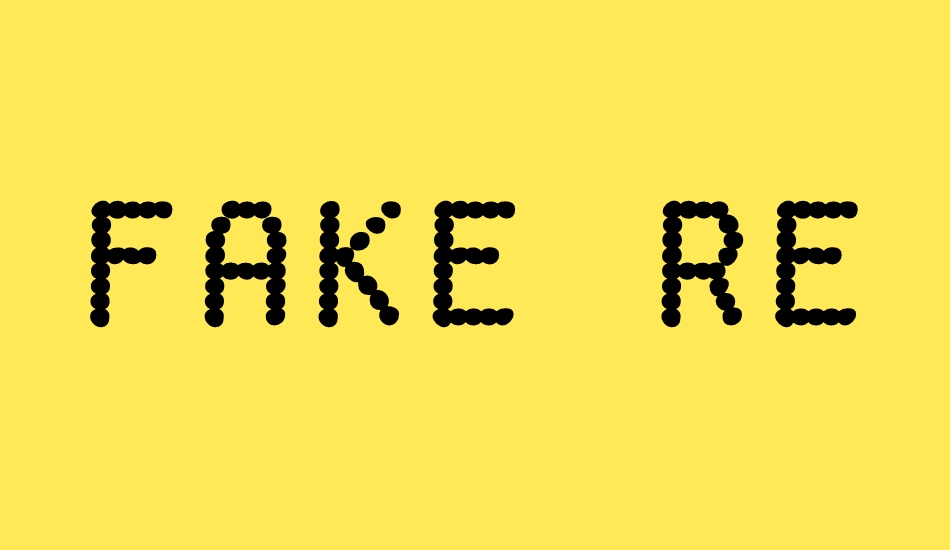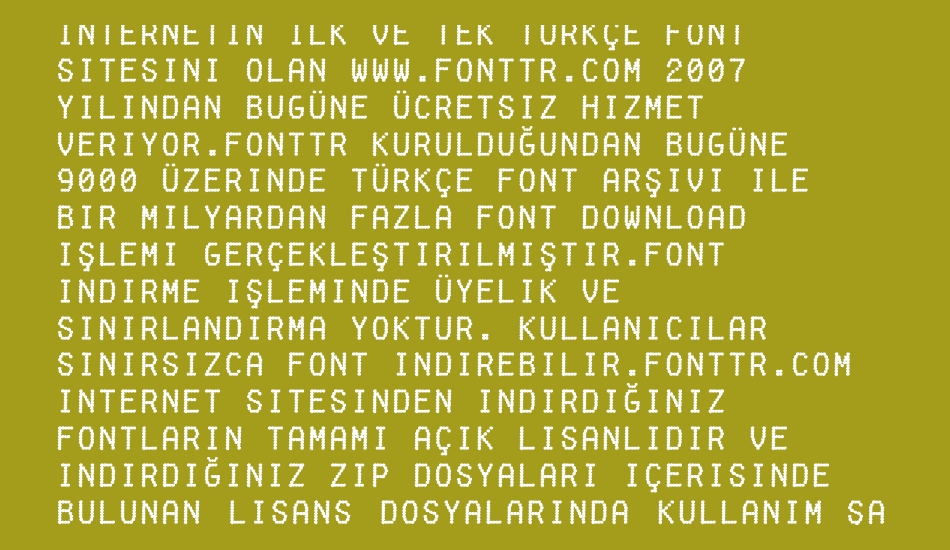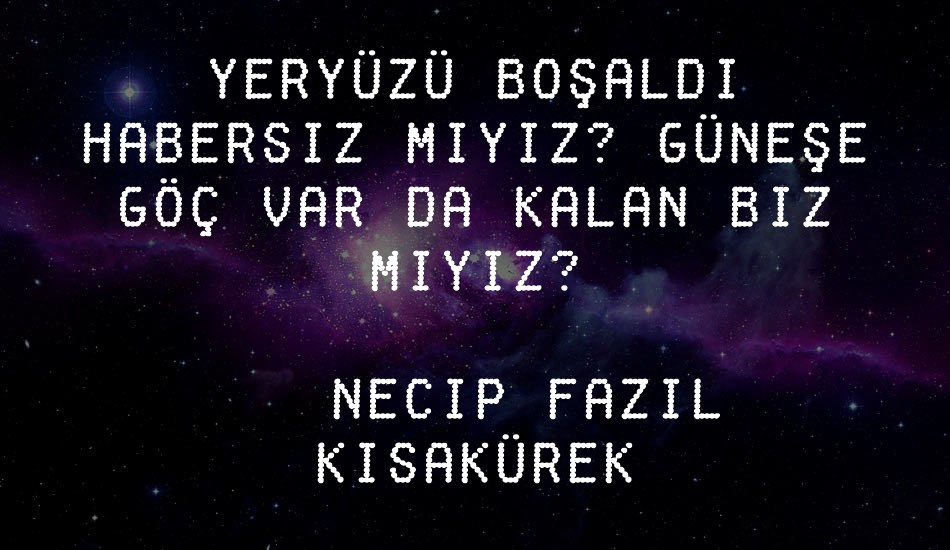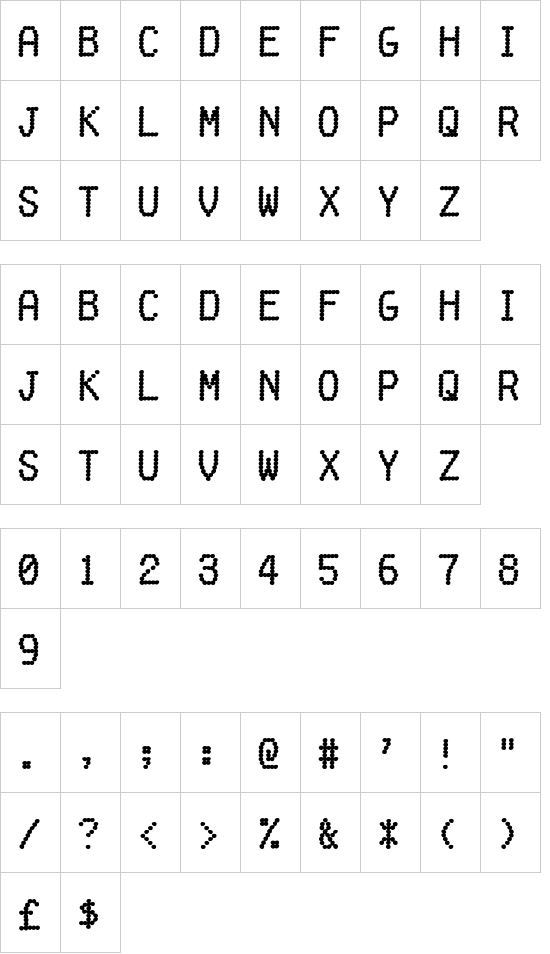
Fake Receipt Font - Fake receipt is a decorative font that resembles print from a cash register. It supports more languages, fractions and numeric ordinals. Fake receipt is a font that mimics the style of old cash register receipts.
Fake receipt is a decorative font that resembles print from a cash register. Fake receipt is a font that mimics the style of old cash register receipts. It supports more languages, fractions and numeric ordinals.
It supports more languages, fractions and numeric ordinals. Fake receipt is a font that mimics the style of old cash register receipts. Fake receipt is a decorative font that resembles print from a cash register.
Fake receipt is a font that mimics the style of old cash register receipts. Fake receipt is a decorative font that resembles print from a cash register. It supports more languages, fractions and numeric ordinals.
Fake receipt is a decorative font that resembles print from a cash register. It supports more languages, fractions and numeric ordinals. Fake receipt is a font that mimics the style of old cash register receipts.
Fake receipt is a font that mimics the style of old cash register receipts. It supports more languages, fractions and numeric ordinals. Fake receipt is a decorative font that resembles print from a cash register.
It supports more languages, fractions and numeric ordinals. Fake receipt is a font that mimics the style of old cash register receipts. Fake receipt is a decorative font that resembles print from a cash register.
Fake receipt is a decorative font that resembles print from a cash register. Fake receipt is a font that mimics the style of old cash register receipts. It supports more languages, fractions and numeric ordinals.
Fake Receipt Is A Font That Mimics The Style Of Old Cash Register Receipts.
Fake receipt is a decorative font that resembles print from a cash register. It supports more languages, fractions and numeric ordinals.